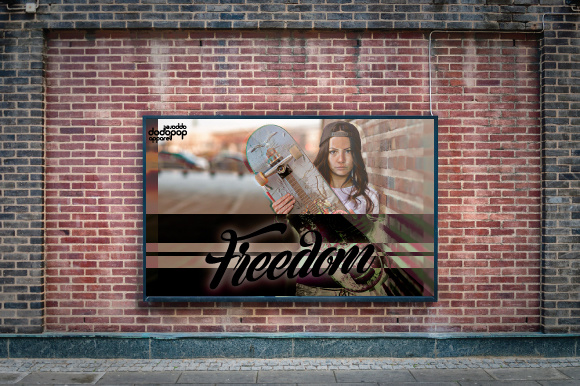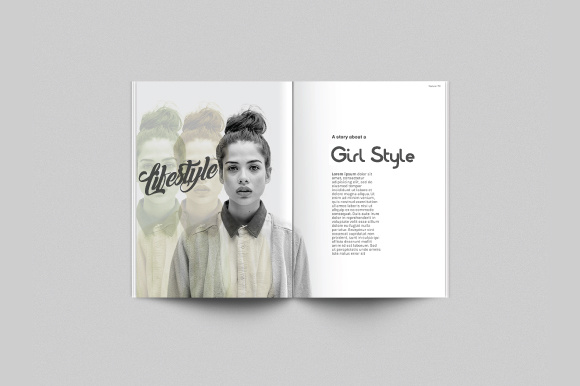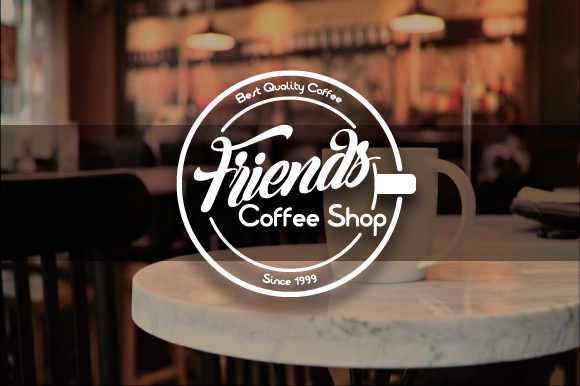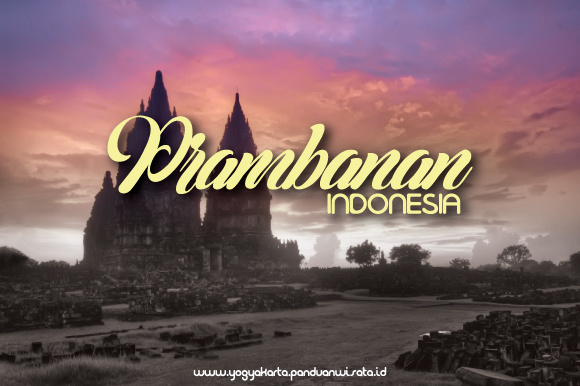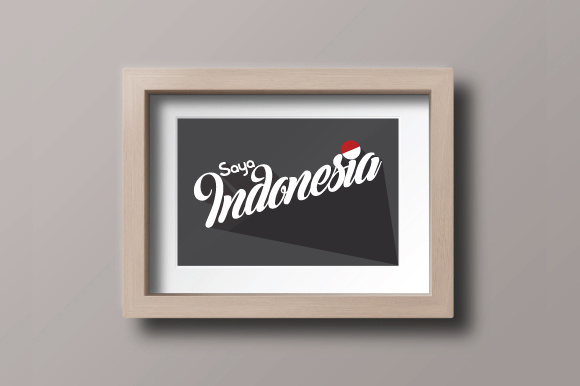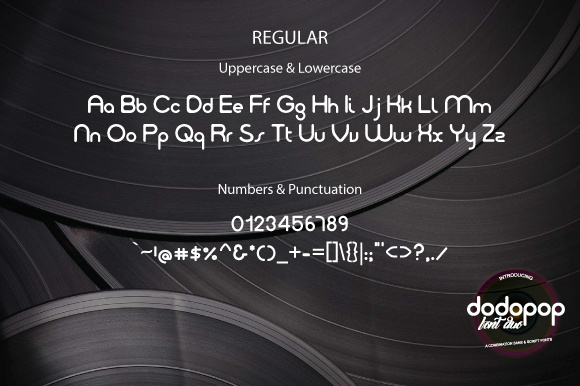
Introduction to Dodopop Duo Font
The Dodopop Duo is a combination of a clean rounded Sans Serif and a fun playful script.
Key Features of Dodopop Duo Font